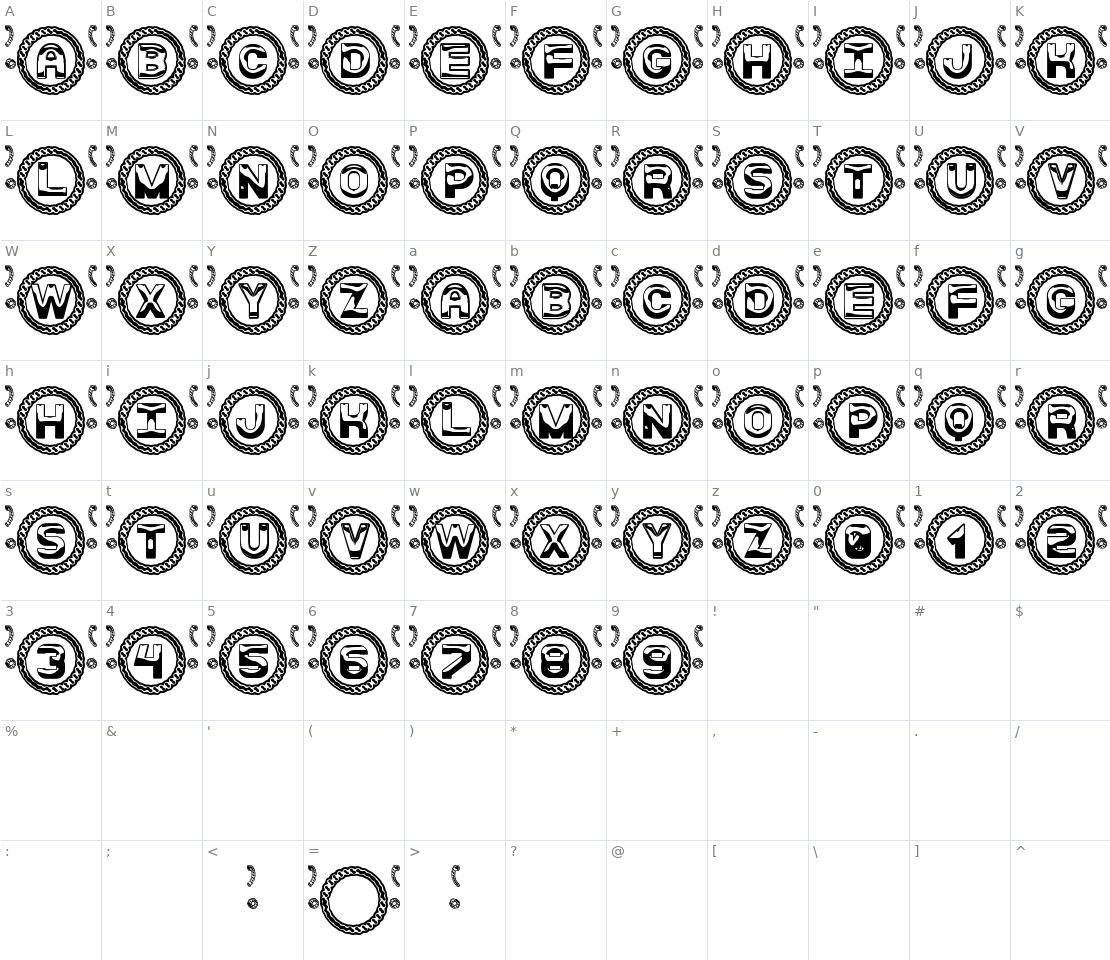
Comely St
Comely St is a decorative display face from Southype where each letterform is constructed from chain-link and medallion elements, giving the text an ornamental, almost jewelry-like quality. The circular, linked structures make it highly distinctive but limit it to headlines, monograms, and short display uses where the intricate detail won't get lost. It's the kind of font that reads more as pattern than text at small sizes, so go big.